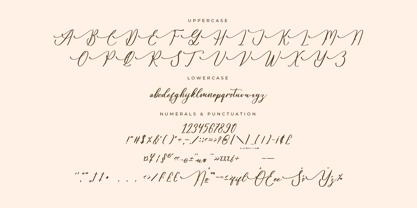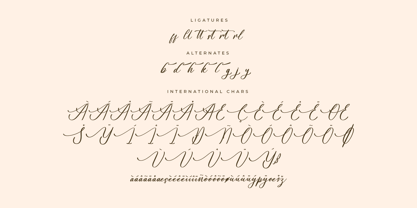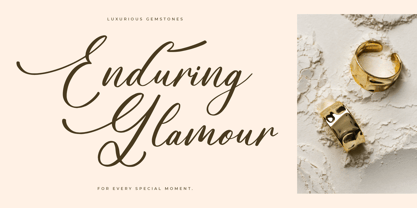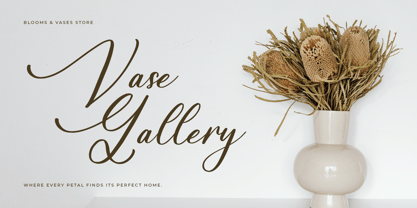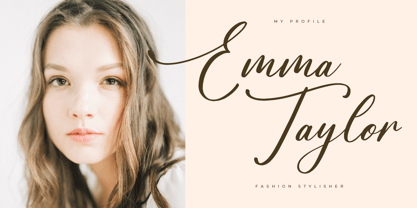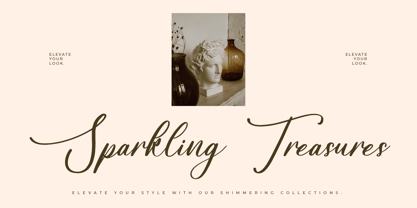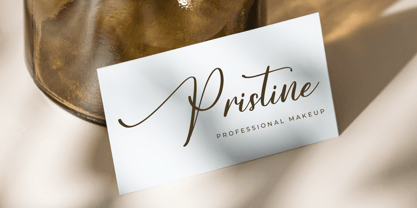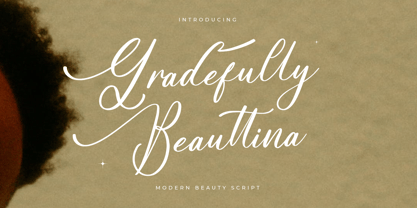
Gradefully Beauttina
by Letterena Studios
The Gradefully Beauttina Font Family was designed by Heru Utama Putra and published by Letterena Studios. Gradefully Beauttina contains 2 styles and family package options. More about this family
Gradefully Beauttina is a dazzling script font that epitomizes elegance and charm. Its graceful flourishes and intricate details captivate the eye, making it perfect for wedding invitations, branding, and signage. With its timeless appeal and delicate curves, Gradefully Beauttina adds a touch of sophistication to any design project